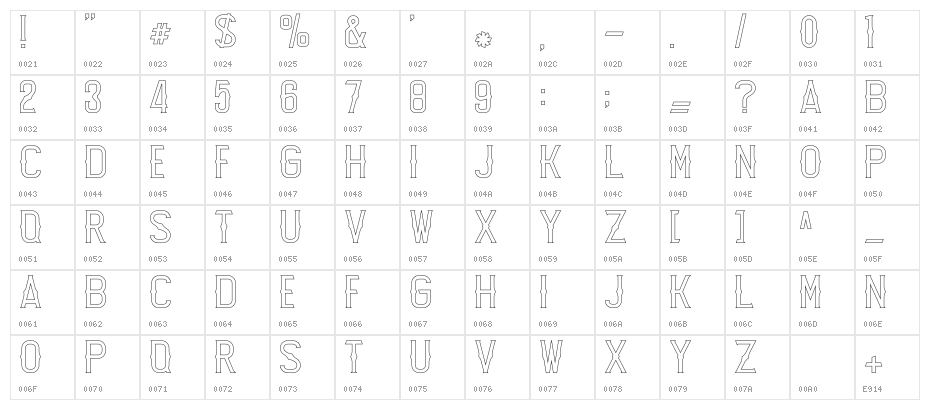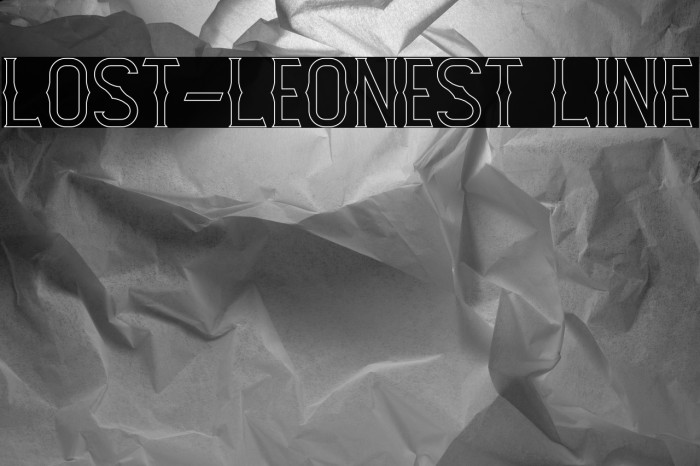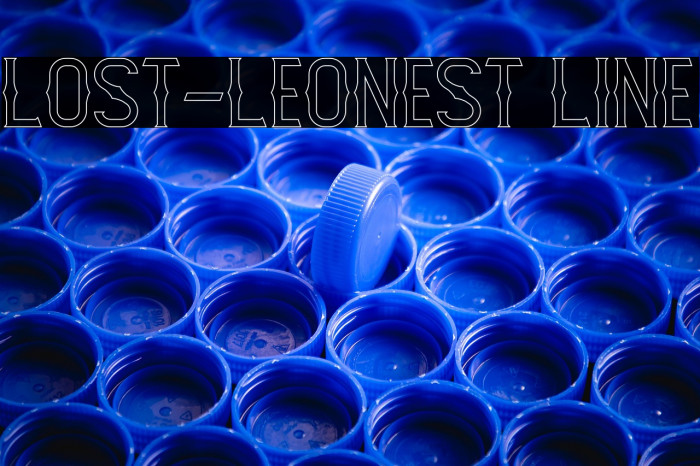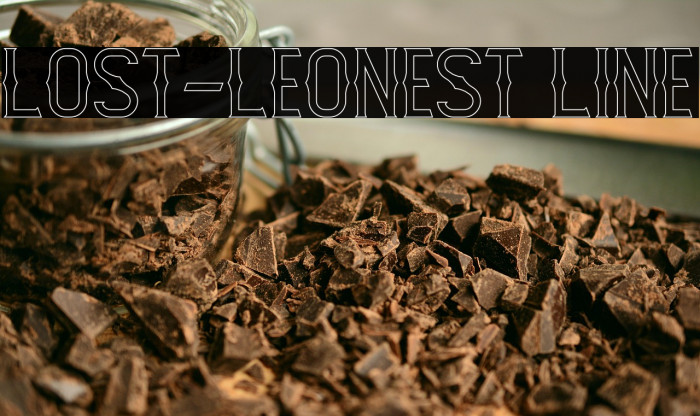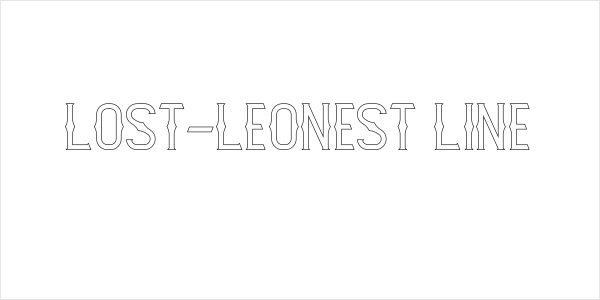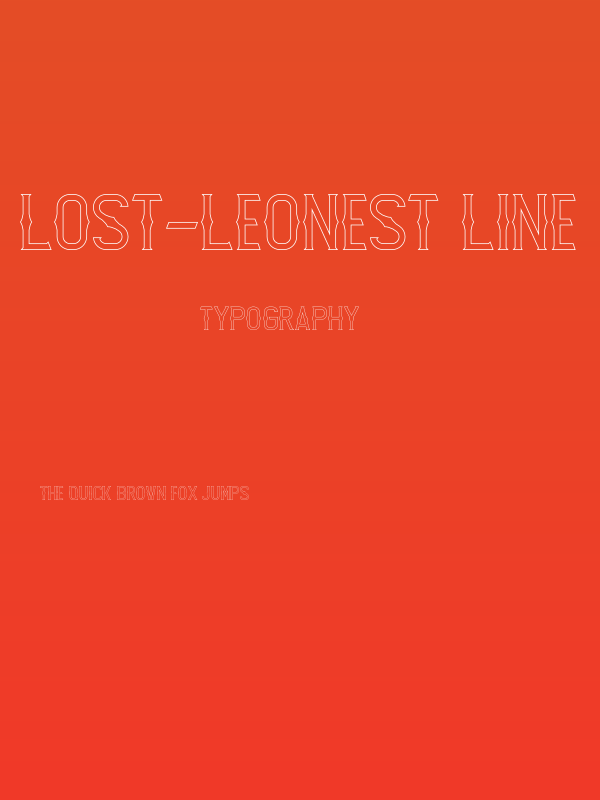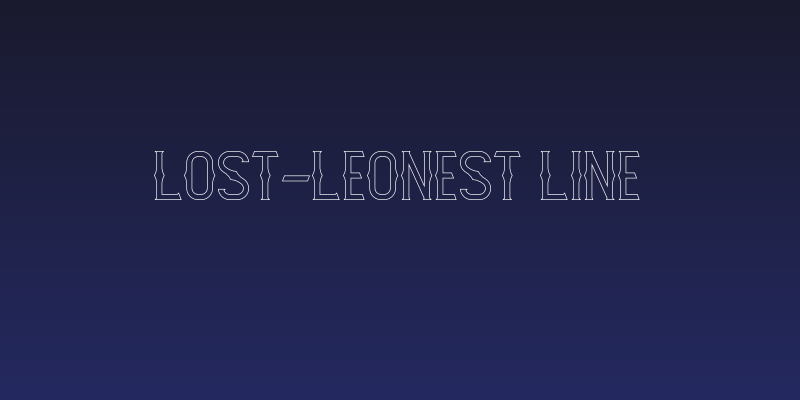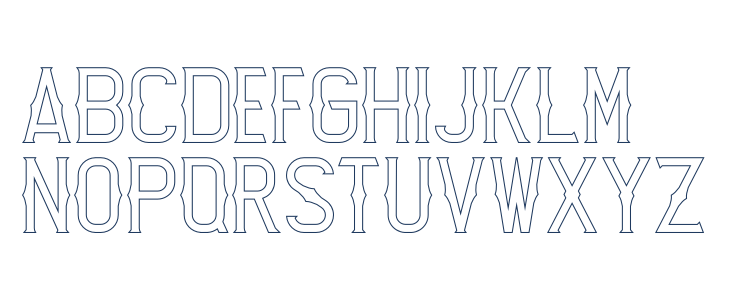
Lost-Leonest Line Font
Lost-Leonest Line Description
This font features a bold, geometric design with a distinct outline style. The characters are uppercase and maintain a consistent height, giving a uniform appearance. The lines are clean and sharp, creating a modern and industrial feel. The numbers and special characters follow the same design principles, ensuring a cohesive look across all elements. The font's structure is sturdy, with a slight emphasis on vertical lines, adding to its strong visual impact.